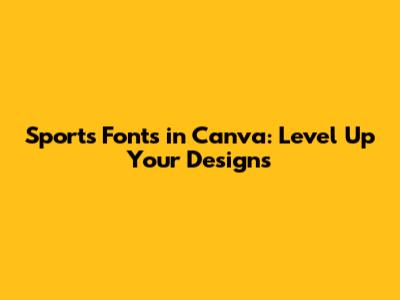
Hey sports fans and design wizards! Ever wanted to make your sports graphics pop with awesome fonts? Well, you're in luck, because today we're diving deep into the world of sports fonts in Canva. Whether you're creating team posters, social media posts for your local league, or even just some cool personal projects, the right font can make all the difference. Canva has a treasure trove of fonts, but knowing which ones scream 'sports' and how to use them effectively is key. Let's get you ready to design like a pro, making your sports content totally unstoppable!
Finding the Perfect Sports Fonts in Canva
So, you're looking for that perfect font to capture the energy and excitement of sports, and you're wondering, "Where do I even start in Canva?" Guys, it's easier than you think! The first thing you gotta do is get familiar with Canva's search function. Don't just type "sports fonts"; try to be a bit more specific. Think about the type of sport you're designing for. Is it the aggressive, bold feel of football or American football? Or is it the sleek, dynamic lines of basketball or soccer? Perhaps it's the classic, enduring style of baseball or tennis? When you type in keywords like "athletic," "bold," "team," "game," "championship," or even specific sport names like "football font" or "basketball font," Canva starts showing you some seriously cool options. You'll see fonts that are chunky and powerful, fonts that are italicized and speedy, and fonts that just have that undeniable athletic vibe. Remember, a lot of these fonts might be part of Canva Pro, but honestly, the free options are pretty amazing too if you hunt around a bit. Keep an eye out for fonts with strong serifs, blocky sans-serifs, or even those cool stencil-like styles that often show up on jerseys. These are the visual cues that scream 'sport' to your audience, and finding them is your first major win in the design game. Don't be afraid to experiment; try out a few different styles on your text to see which one feels right for the message you want to convey. Sometimes, a font that looks amazing on its own doesn't quite fit the overall mood of your design, so testing is absolutely crucial. Happy hunting!
Top Sports Font Styles for Impactful Designs
Alright, let's talk about the styles of fonts that really make sports designs sing. You want fonts that convey power, speed, and team spirit, right? First up, we have bold and blocky fonts. These are your go-to for titles, team names, and anything that needs to grab attention immediately. Think of those classic jersey numbers or the big, impactful headlines you see on sports news websites. Fonts like Impact, Bebas Neue, or Anton in Canva fit this bill perfectly. They're strong, they're unapologetic, and they just look like they belong on a sports field. Next, let's consider italicized and dynamic fonts. These fonts are all about motion and speed. They're perfect for action shots, taglines that emphasize movement, or even just to add a sense of urgency to your design. Look for fonts with a forward slant and sharp edges, like Oswald (in italics), Montserrat (in italics), or some of the more aggressive script fonts that mimic a swoosh or a fast stroke. These fonts trick the eye into seeing movement, which is exactly what you want when you're showcasing athletic prowess. Then there are stencil fonts. These have that gritty, industrial feel, often seen on military-style graphics or, you guessed it, sports equipment stencils. They add a rugged, authentic touch. In Canva, you might find these under keywords like "stencil" or "athletic stencil." They convey a sense of toughness and raw power. Finally, don't forget about classic serif fonts for a more traditional or historical sports feel. For sports with a long heritage like baseball, tennis, or even horse racing, a well-chosen serif font can evoke a sense of tradition and prestige. Think of fonts that have small, decorative strokes at the ends of the letters. While not as common in modern, high-energy sports design, they have their place for specific themes. Experimenting with these styles will help you find the exact vibe you're going for and ensure your sports graphics are visually compelling and memorable. It's all about matching the font's personality to the sport's spirit!
Using Bold Fonts for Headlines and Titles
When you're designing anything sports-related, the headline or title is your first impression. You want it to hit hard, right? That's where bold fonts come into play. Think about it: you see a poster for a championship game, and the title is usually huge, thick, and impossible to ignore. That's the power of a bold font. In Canva, you'll find tons of options that scream this kind of impact. Look for sans-serif fonts that are extra thick, often labeled as 'Black,' 'Heavy,' or 'Extra Bold.' Fonts like Anton, League Gothic, or Impact are absolute champions in this category. They have a presence that demands attention. Imagine using one of these for your team's name or the event title – it immediately conveys a sense of importance and excitement. Don't just stick to plain bold, either. Some bold fonts have a slightly condensed or extended feel, which can add another layer of visual interest. For instance, a condensed bold font might feel more aggressive and direct, while an extended bold font can feel more grand and celebratory. When you apply these fonts, make sure they have enough contrast with your background. A bright white bold font on a dark background, or a dark bold font on a light background, will ensure maximum readability and impact. Avoid using too many words in a bold font, though. They are best reserved for key phrases or single words that you want to stand out above everything else. Think of them as the exclamation points of your typography! They’re designed to be seen, to be felt, and to get people hyped up for the action. So, next time you need to make a statement in your sports design, reach for the boldest font you can find in Canva and watch your design transform.
Italicized Fonts for Speed and Movement
Alright, let's talk about italicized fonts, the secret weapon for conveying speed and dynamism in your sports graphics. You know how in movies, when someone is running fast, the background might blur, or there's a sense of motion? Italicized fonts do something similar for your text. They have a natural forward slant that visually suggests movement, momentum, and agility. This makes them absolutely perfect for anything related to action in sports. Think about using them for athlete names on jerseys, action-packed taglines, or even just to add a touch of energy to a design that might otherwise feel a bit static. In Canva, you'll find many popular fonts have an italicized version available. Look for fonts like Oswald Italic, Montserrat Italic, or Lato Italic. These are clean, modern, and convey a sense of professionalism while still adding that crucial element of speed. Beyond the standard italics, some fonts are specifically designed with a more aggressive, slanted style that can evoke even more power and velocity. If you're going for a really high-energy look, search for fonts described as 'slanted' or 'italicized display' fonts. They often have sharper angles and a more dramatic lean. When using italicized fonts, it’s a good idea to pair them with a non-italicized font for contrast. For example, use a bold, regular font for your main title and then use an italicized version for a subtitle or a specific call to action. This creates a visual hierarchy and makes your design more engaging. Just be mindful of readability; while italics are great for speed, too much text in a highly slanted font can become difficult to read, especially at smaller sizes. So, use them strategically to highlight key elements and inject that undeniable sense of motion into your sports designs. They're your ticket to making your graphics feel alive and electric!
Exploring Decorative and Display Sports Fonts
Beyond the basics of bold and italic, Canva offers a whole world of decorative and display sports fonts that can add a unique flair to your designs. These fonts are designed to be eye-catching and unique, often featuring stylized elements, textures, or dramatic shapes. They're not typically used for long blocks of text, but they absolutely shine when used for headlines, logos, or key branding elements. Think of fonts that have a retro feel, reminiscent of old-school sports posters, or those with a modern, futuristic edge that suits high-tech sports. You might find fonts that mimic brush strokes, have a gritty texture, or even incorporate unique graphic elements within the letters themselves. When searching in Canva, try keywords like "display," "decorative," "grunge," "vintage sports," or "athletic display." You'll stumble upon some real gems that can give your design a distinctive personality. For example, a distressed, textured font can give your design a raw, authentic feel, perfect for extreme sports or a vintage sports league. On the other hand, a sleek, geometric display font might be ideal for esports or modern athletic brands. The key here is to let these fonts lead the design. They are often the star of the show, so don't overload your design with too many other competing elements. Pair them with simple, clean fonts for body text to ensure everything remains legible. These decorative fonts are your opportunity to get creative and inject a strong sense of character into your sports graphics, making them truly memorable and stand out from the crowd. They’re the exclamation points and the special effects of your typography toolkit!
Tips for Using Sports Fonts Effectively in Canva
Alright, guys, we've talked about finding the fonts and the different styles. Now let's get practical. How do you actually use these sports fonts in Canva like a seasoned pro? It's all about balance, readability, and matching the font to the mood. First and foremost, readability is king. No matter how cool a font looks, if people can't read what it says, it's failed its primary job. This is especially true for any crucial information like dates, times, or team names. Always test your chosen font in different sizes and on different backgrounds to ensure it's clear and legible. Don't be afraid to adjust spacing (kerning and leading) to improve how the letters and lines flow together. Next, contrast is your best friend. Make sure your text stands out against your background. A common mistake is using a font color that's too similar to the background color, making it blend in. Use strong color contrasts – think light text on a dark background or vice-versa. Also, consider the visual weight of your font against other elements. A super bold font needs space to breathe, while a lighter font can be placed closer to other design elements. Another critical tip is font pairing. You rarely want to use just one font for everything. Combine a strong, bold display font for your headline with a cleaner, more readable sans-serif font for any body text or smaller details. This creates visual hierarchy and makes your design more dynamic and professional. A good rule of thumb is to pair a display font with a text font that complements it in style and weight, but offers enough contrast to be distinct. Think of it like a sports team: you need different players with different skills working together harmoniously. Finally, consistency is key, especially if you're designing for a specific team or league. Stick to a consistent set of fonts and styles across all your materials to build brand recognition. Canva makes it easy to save your brand colors and fonts, so leverage that feature! By following these tips, you'll be well on your way to creating sports graphics that are not only visually stunning but also highly effective.
Mastering Font Pairing for Sports Designs
Font pairing is like assembling the perfect starting lineup, guys. You need different elements that work together harmoniously to create a winning team. When you're dealing with sports fonts in Canva, you don't want every piece of text to look the same. That's where smart pairing comes in. The golden rule is to pair a display font with a text font. A display font is usually the more decorative, attention-grabbing one – think your bold title fonts or unique stencil styles. These are meant for headlines and short bursts of text. The text font, on the other hand, needs to be highly readable and clean, designed for longer passages or smaller details. For sports designs, this often means pairing a strong, athletic-looking title font (like Anton or a cool stencil) with a simple, functional sans-serif font like Open Sans, Lato, or Roboto for any supporting information. The contrast between the two is what makes the design visually interesting and helps guide the viewer's eye. Look for fonts that share some characteristics but have enough difference to stand out. For example, if your display font is all sharp angles, you might pair it with a text font that has rounded edges for a softer contrast, or another font with subtle angles for a more cohesive feel. Another technique is to use different weights or styles of the same font family. You could use League Gothic (bold and condensed) for your main title and then League Gothic Regular or League Spartan Bold for secondary text. This ensures consistency while still providing visual variety. Always ask yourself: does this pairing enhance readability? Does it match the energy of the sport? Does it create a clear hierarchy of information? If the answer to these is yes, you've got a winning combination! Experimentation is crucial here, so don't be afraid to try out different pairings until you find that perfect synergy that makes your sports graphics truly pop.
Ensuring Readability and Legibility in Designs
We've talked about making your designs look awesome, but let's get real for a second: if people can't read what you've designed, what's the point? This is where readability and legibility become super important, especially when you're working with those flashy sports fonts in Canva. Legibility refers to how easily individual letters can be distinguished from one another. Readability refers to how easy it is to read blocks of text. For sports designs, you're often dealing with punchy headlines and essential info like dates, times, scores, and team names. Make sure the font you choose, even if it’s a cool decorative one, can be easily understood at a glance. Avoid fonts that are too thin, too stylized, or have letters that look too similar (like a lowercase 'l' and an uppercase 'I' in some fonts). When it comes to readability for any supporting text, stick to clean, simple fonts. Sans-serif fonts are generally your best bet for clarity. Consider the size of your text. A font that looks great huge might become a jumbled mess when shrunk down for a social media post. Always preview your design at the actual size it will be viewed. Spacing is another key factor. Kerning (the space between individual letters) and leading (the space between lines of text) can dramatically impact how easy your text is to read. Most fonts have decent default spacing, but sometimes you'll need to manually adjust it in Canva's text editor to make things flow better. And of course, contrast! I can't stress this enough. Ensure there's enough difference between your text color and your background color. A dark grey on a black background? Bad idea. Bright yellow on white? Also a no-go. Use online contrast checkers if you're unsure, especially for accessibility. Prioritize clarity for essential information; style can be layered on top once the core message is legible. Your readers will thank you for it!
Conclusion: Design Your Winning Sports Graphics!
So there you have it, folks! We've navigated the exciting world of sports fonts in Canva, from finding those perfect athletic styles to understanding how to pair them and ensure your designs are crystal clear. Remember, the right font isn't just decoration; it's a powerful tool that communicates energy, speed, and the spirit of the game. Whether you're going for the aggressive punch of a bold block font, the dynamic flow of an italicized typeface, or the unique character of a decorative display font, Canva has got you covered. Always keep readability and contrast in mind, and don't be afraid to experiment with font pairings to create that winning visual composition. Now go forth, armed with this knowledge, and design some absolutely killer sports graphics that will have everyone cheering! Get creative, have fun, and may your designs always hit the mark!